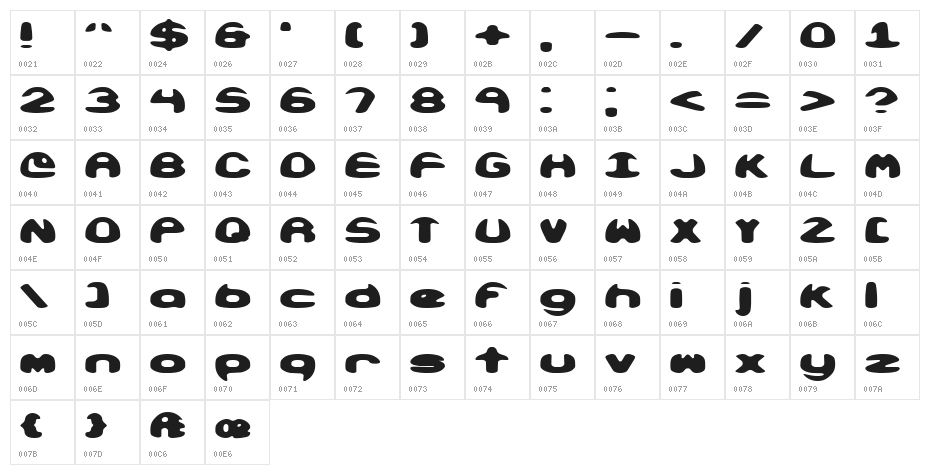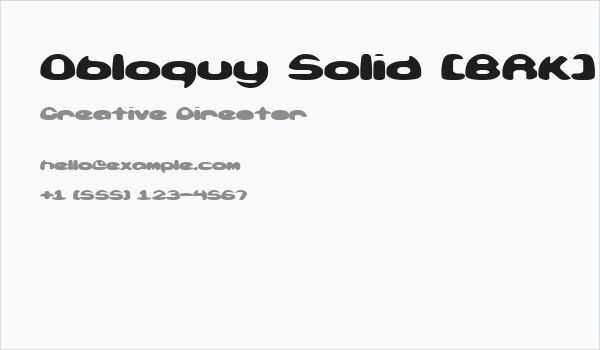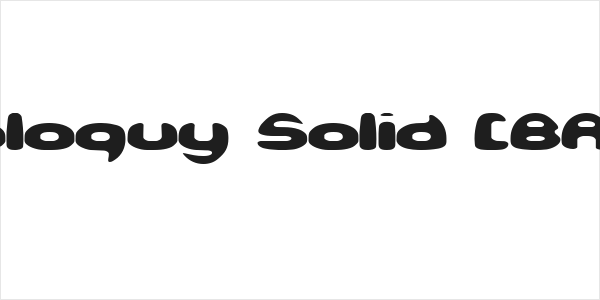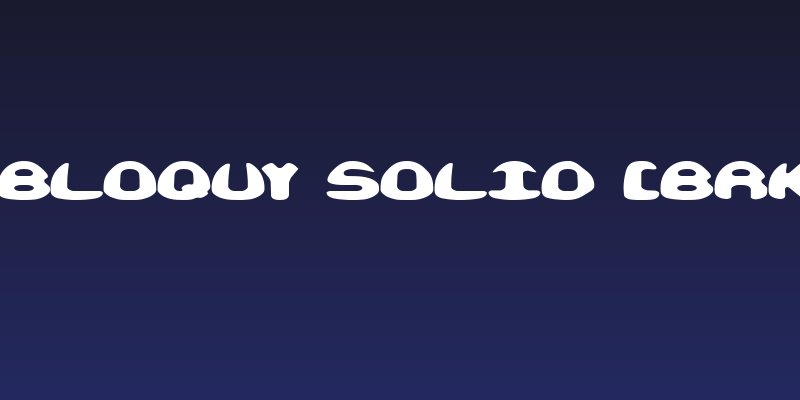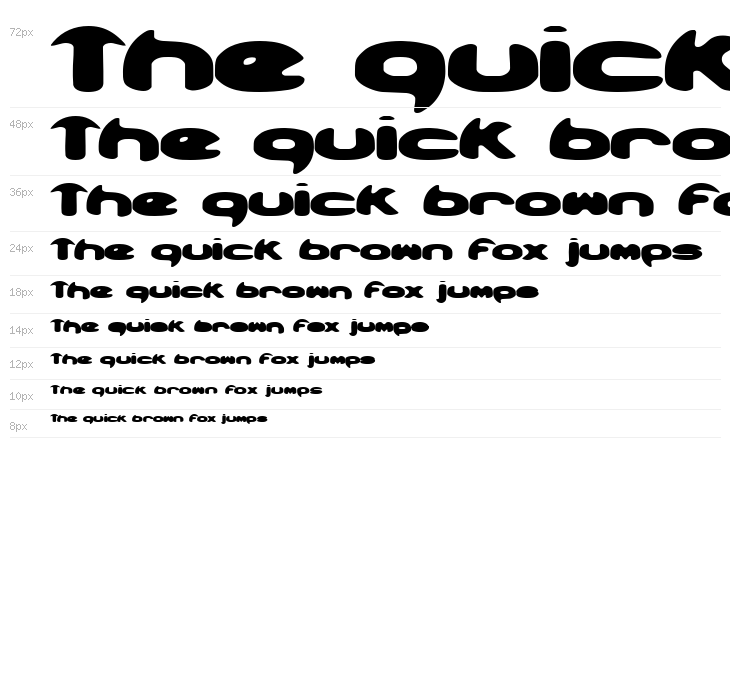
Obloquy Solid [BRK] Font
Obloquy Solid [BRK] Description
This font features a bold and playful design with thick, rounded characters that give it a solid and substantial appearance. The letters are uniformly wide, with a slightly compressed look that adds to its unique style. The uppercase and lowercase letters maintain a consistent weight, creating a cohesive and harmonious look. The numbers and special characters follow the same design principles, ensuring uniformity across all glyphs. This font's distinct style makes it stand out, with a modern and slightly futuristic vibe. The smooth curves and lack of sharp edges contribute to its approachable and friendly feel, making it suitable for a variety of creative applications.
| Use Case | Logos, Posters, Creative Content |
| Proposed Projects | Ideal for children's books, playful branding, posters, and creative digital content. |